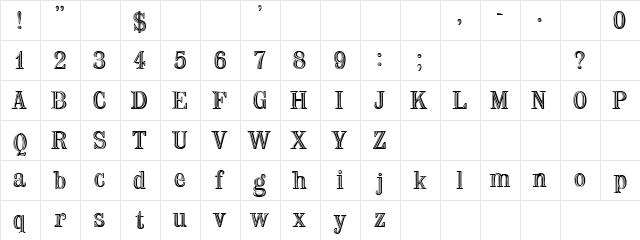
24 Carats Regular
Design Context for 24 Carats Typeface
24 Carats is a composed and adaptable typeface that performs quietly and consistently across a wide range of design contexts.